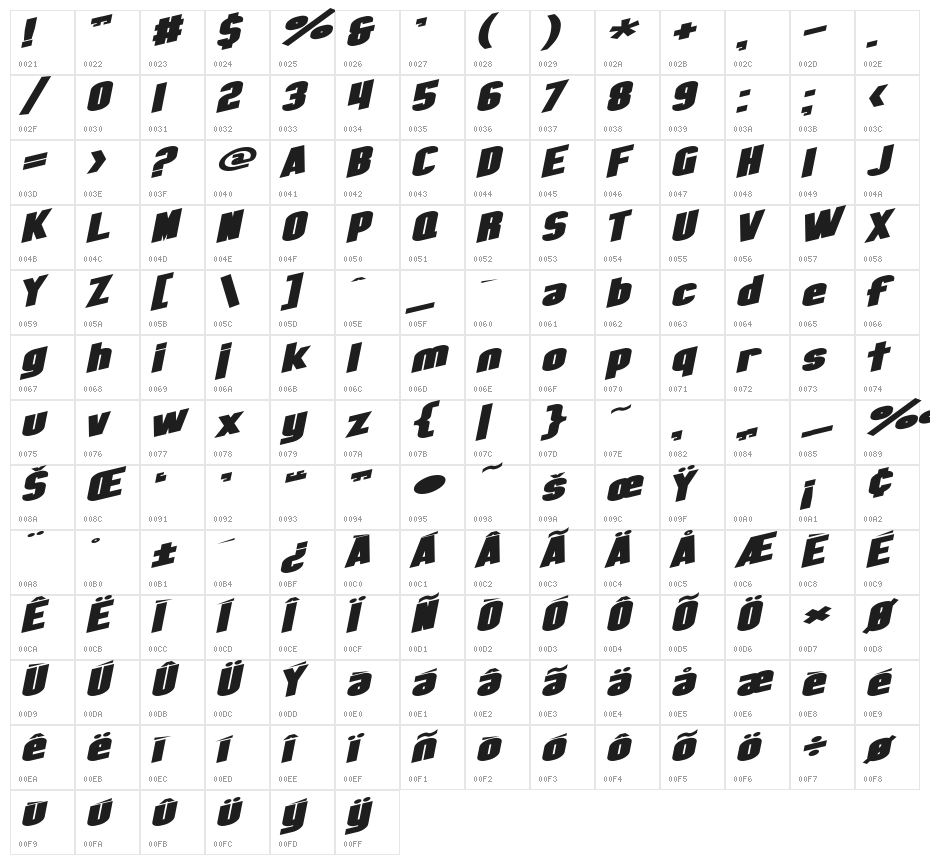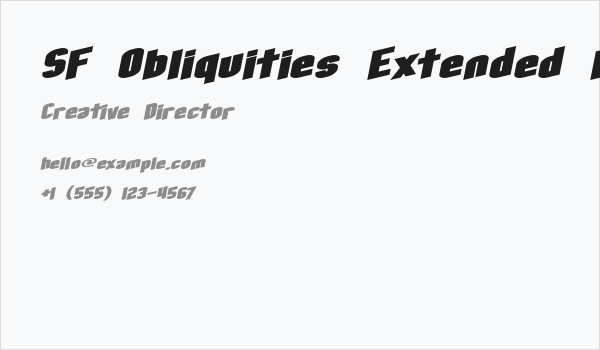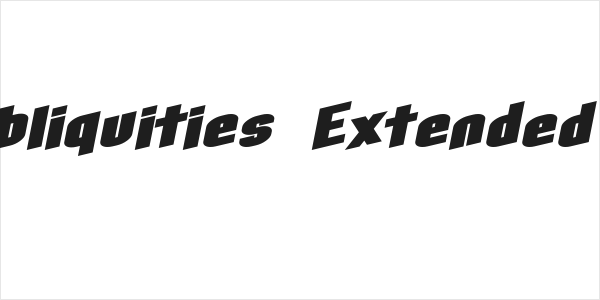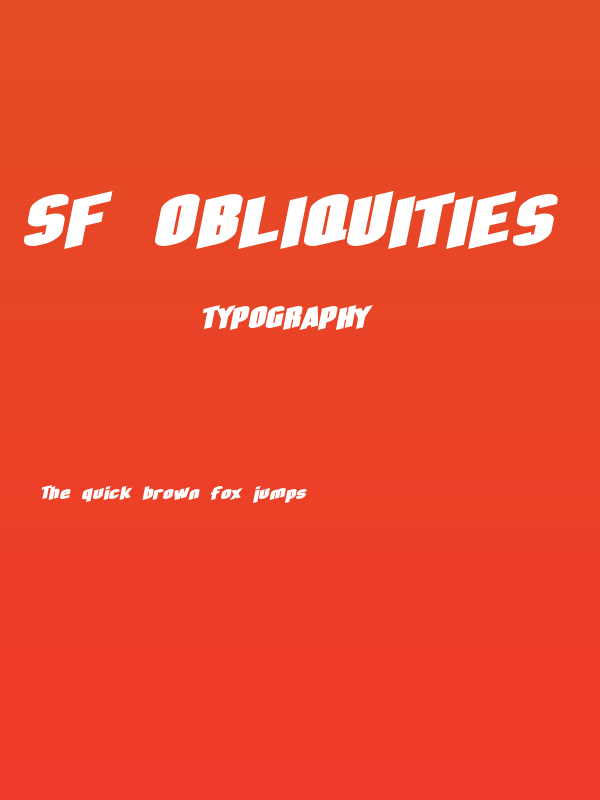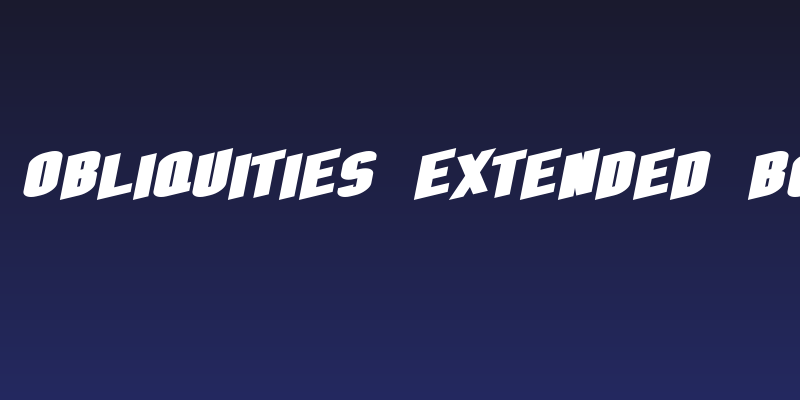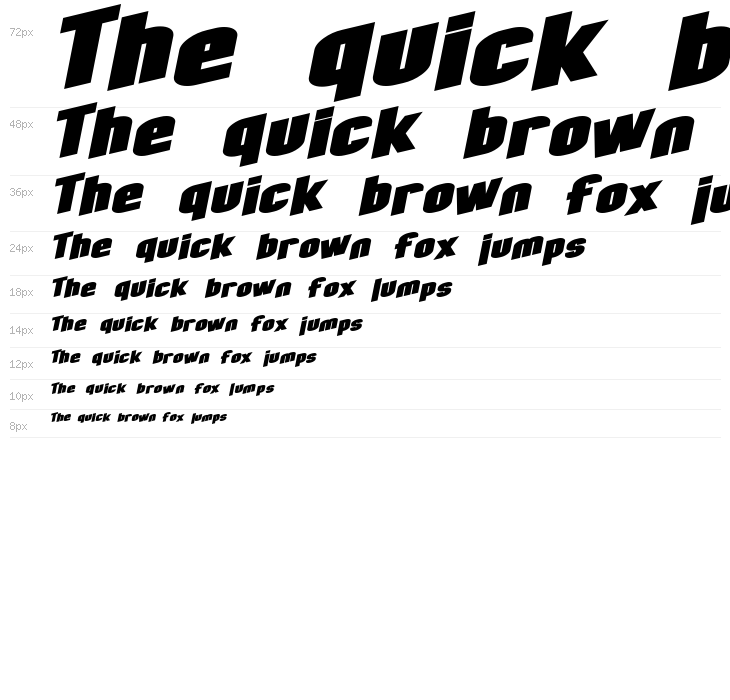
SF Obliquities Extended Bold Font
SF Obliquities Extended Bold Description
This font features a bold and dynamic style with an extended width, giving it a strong and impactful presence. The characters are slanted, adding a sense of motion and energy, making it ideal for attention-grabbing designs. The uppercase and lowercase letters are consistent in their boldness, with sharp angles and clean lines that enhance readability. The numerals and special characters maintain the same bold and slanted characteristics, ensuring uniformity across all text elements. This font's unique style makes it suitable for modern and edgy design projects.
| Proposed Projects | Ideal for sports branding, dynamic posters, modern advertisements, and edgy graphic designs. |